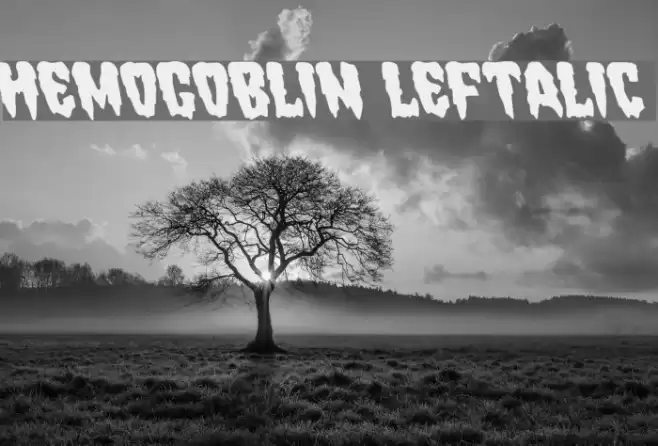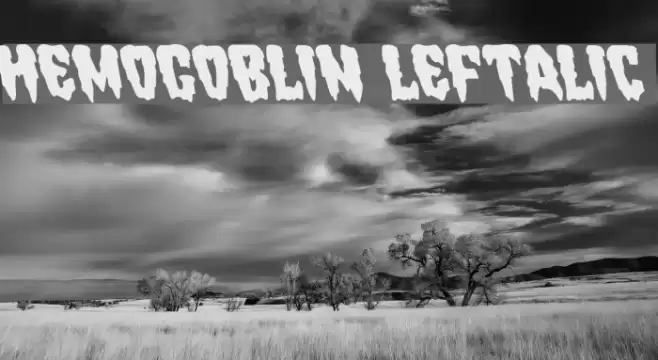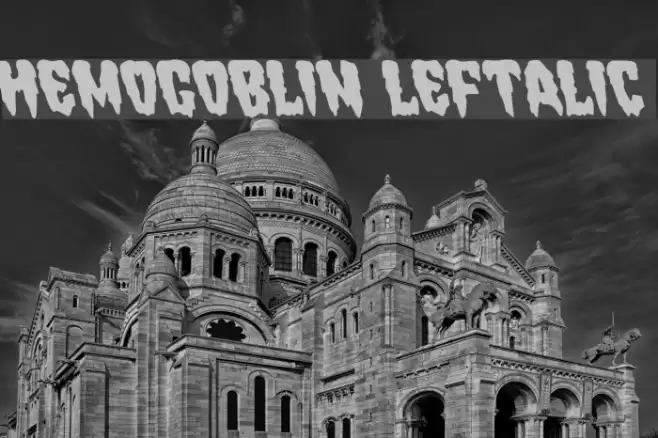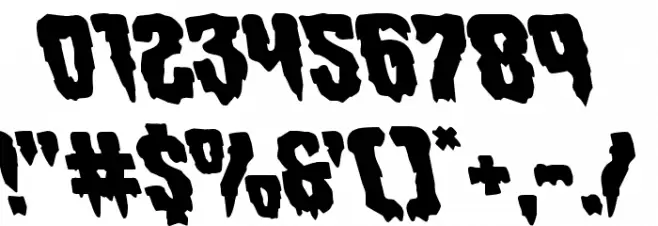
Hemogoblin Leftalic Font
Hemogoblin Leftalic Description
This font features a bold, jagged design with a distressed, horror-themed aesthetic. The characters have an irregular, dripping appearance, reminiscent of melting or bleeding, which gives it a unique and edgy look. The uppercase and lowercase letters maintain a consistent style, with sharp edges and uneven surfaces that create a sense of movement and chaos. The numbers and special characters follow the same design principles, ensuring a cohesive appearance across all glyphs. This font is ideal for projects that require a dramatic and eye-catching typeface.
A bold, jagged font with a distressed, horror-themed aesthetic from Uncategorized fonts.
- Proposed Projects: Perfect for Halloween-themed designs, horror movie posters, spooky event invitations, and edgy graphic novels.